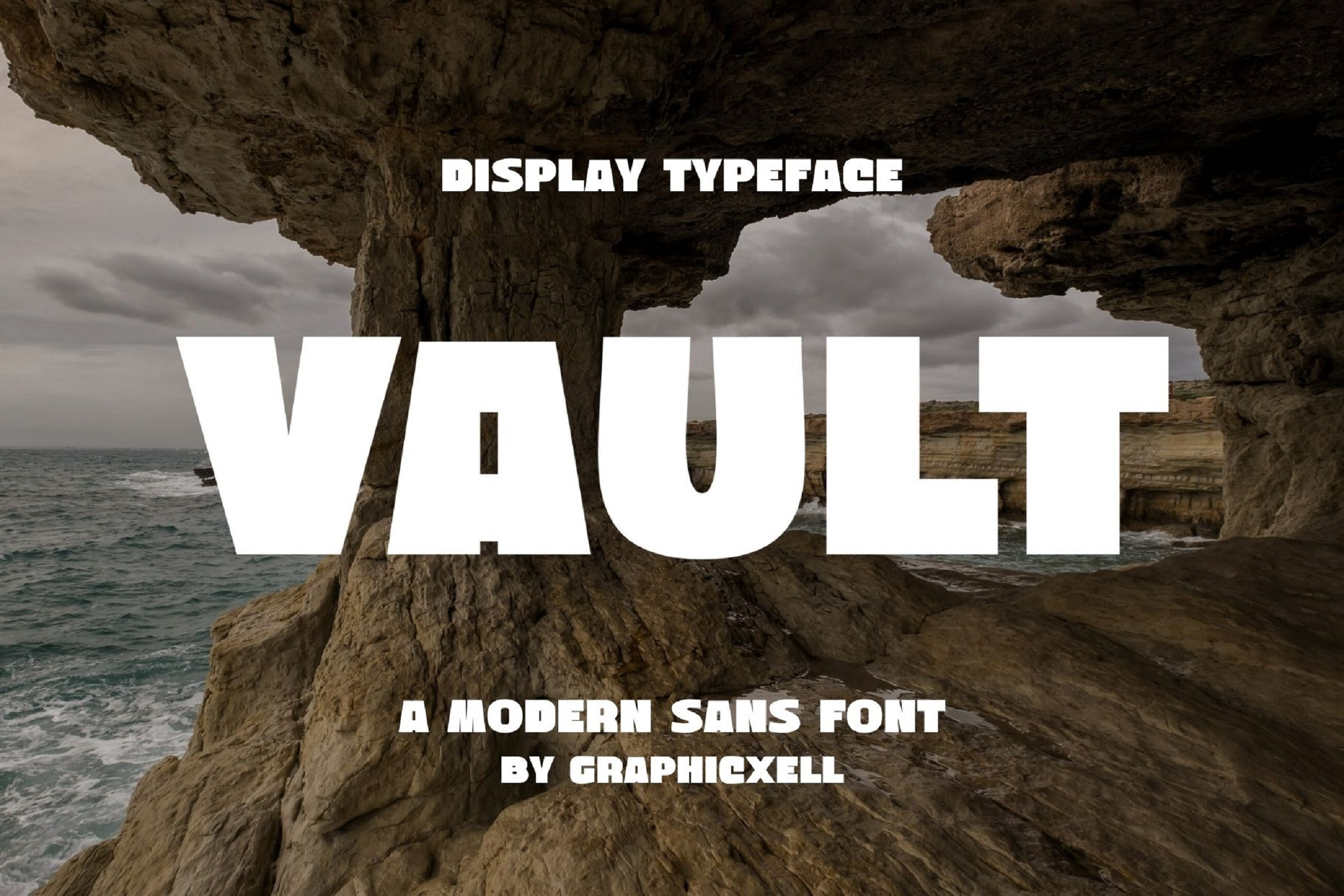
Vault modern sans font
Vault modern sans font inspired by the famous minimalist logo perfect for the purposes of designing templates, brochures, videos, advertising branding, logos, invitation, layout design, elegant crafting, beauty design and other